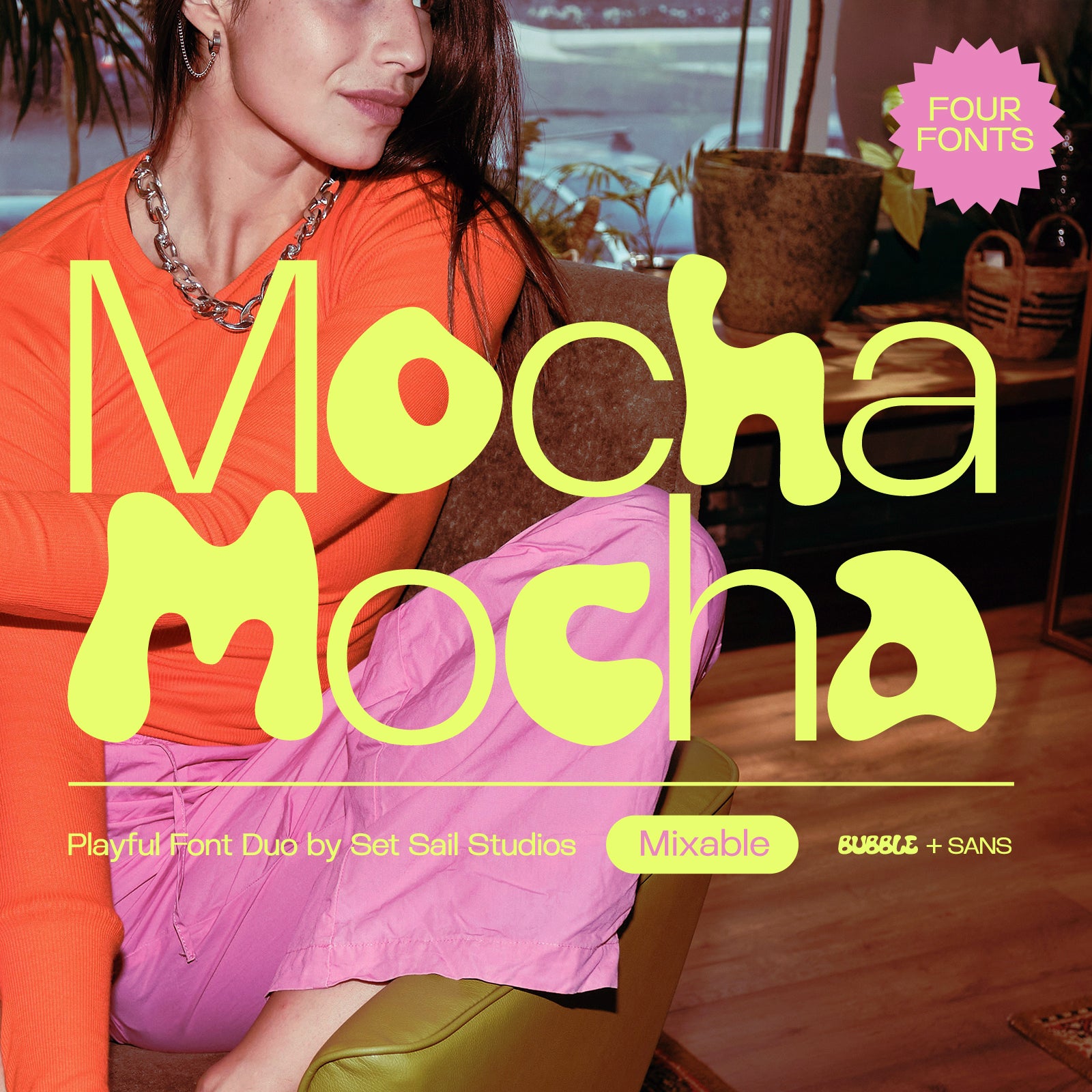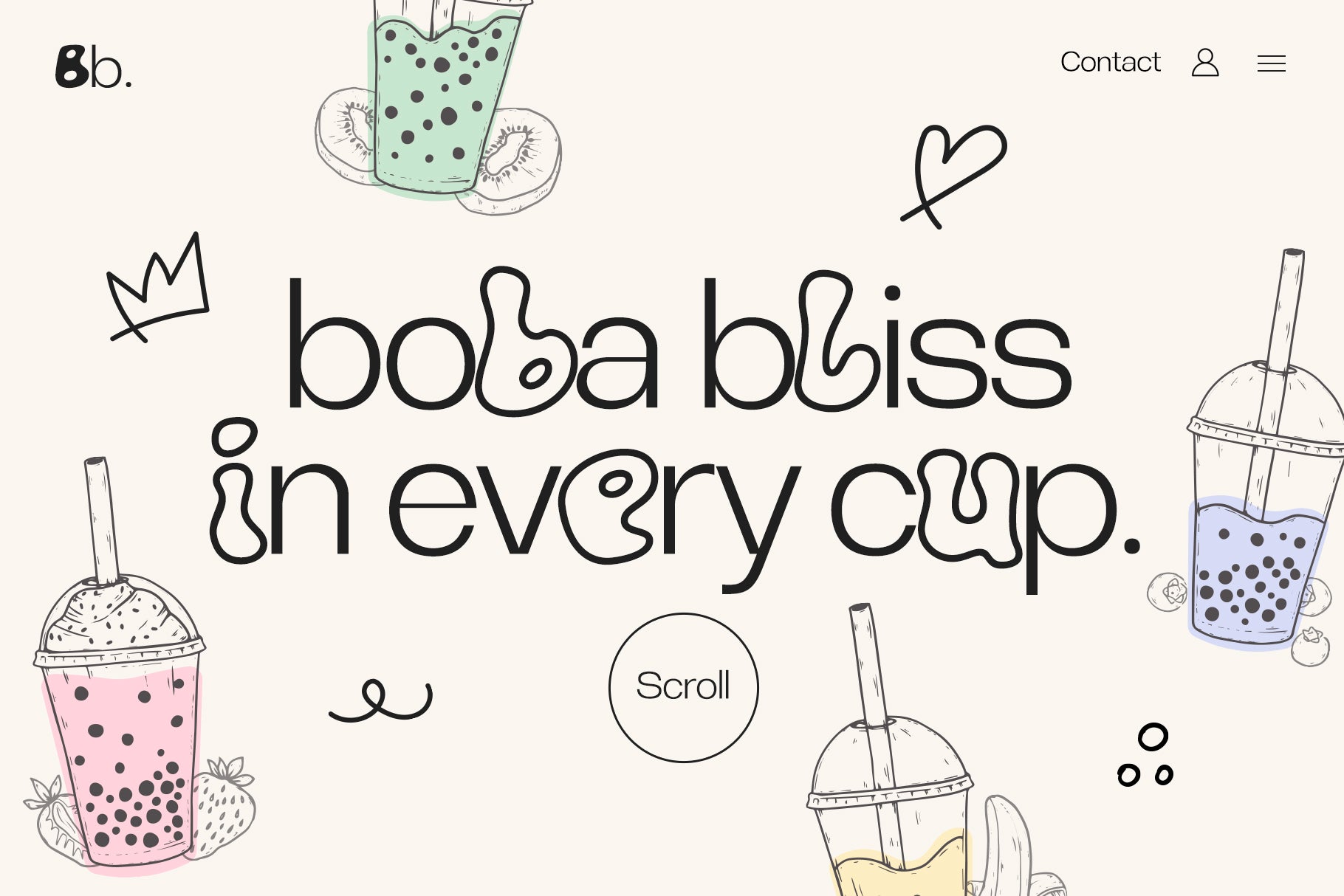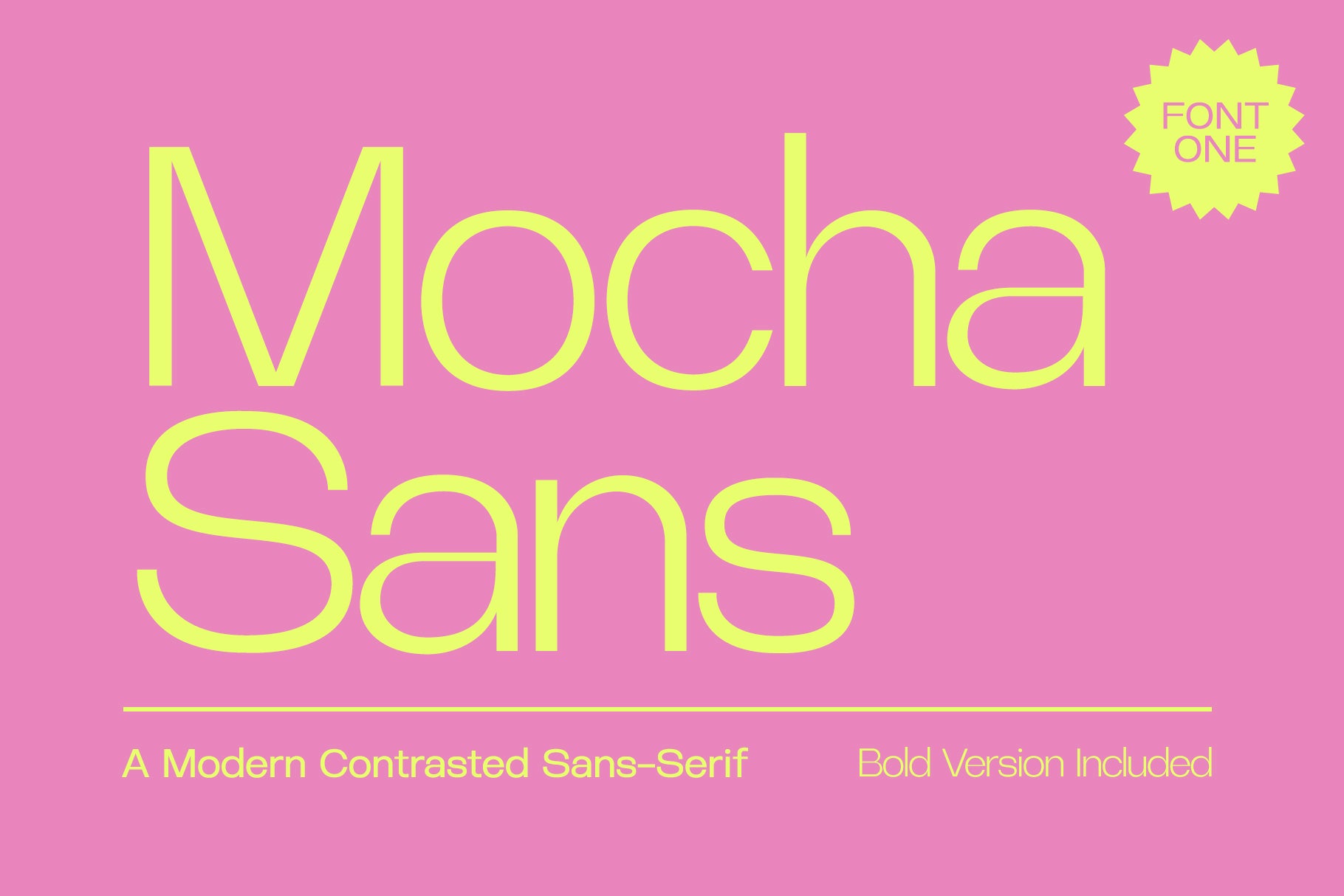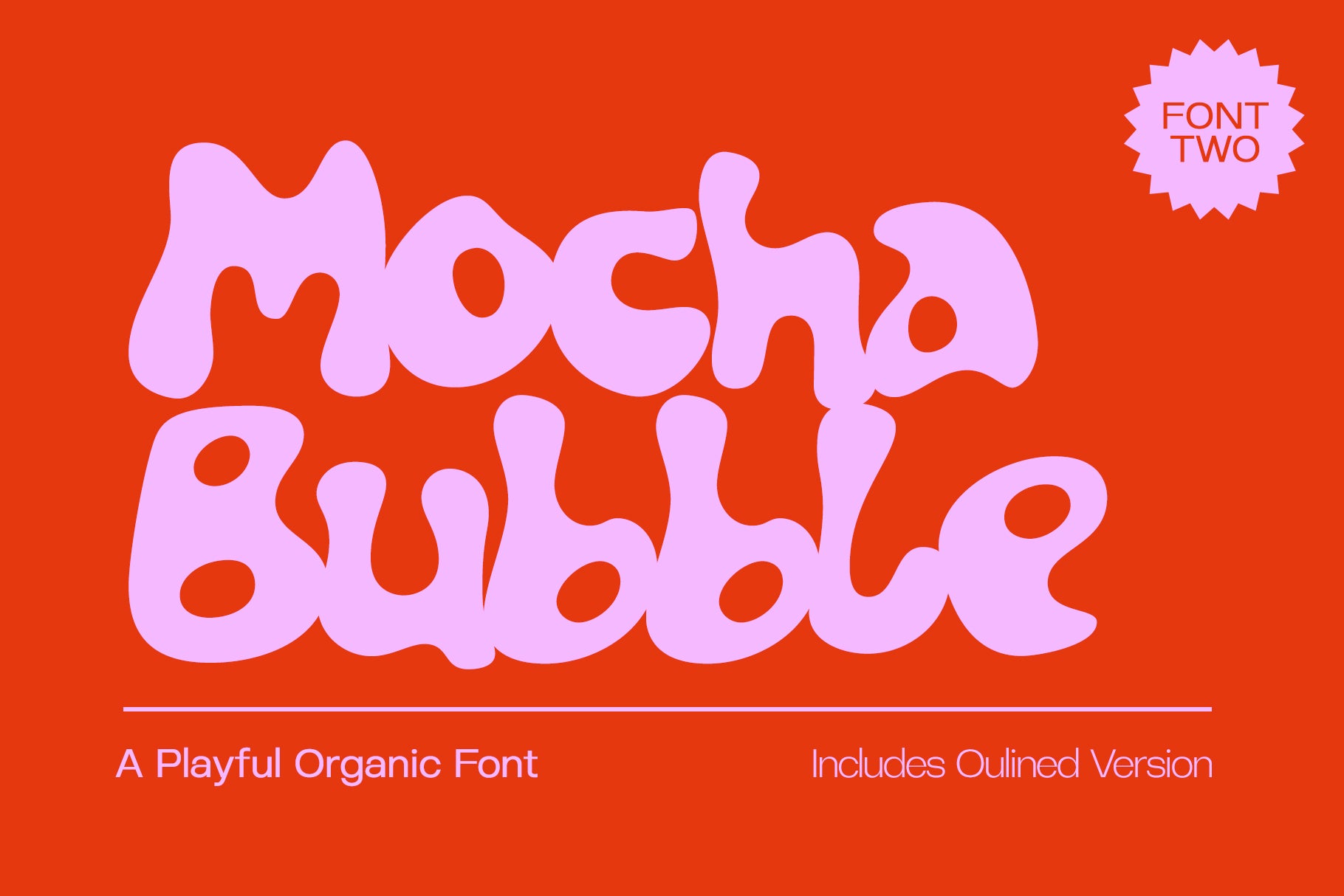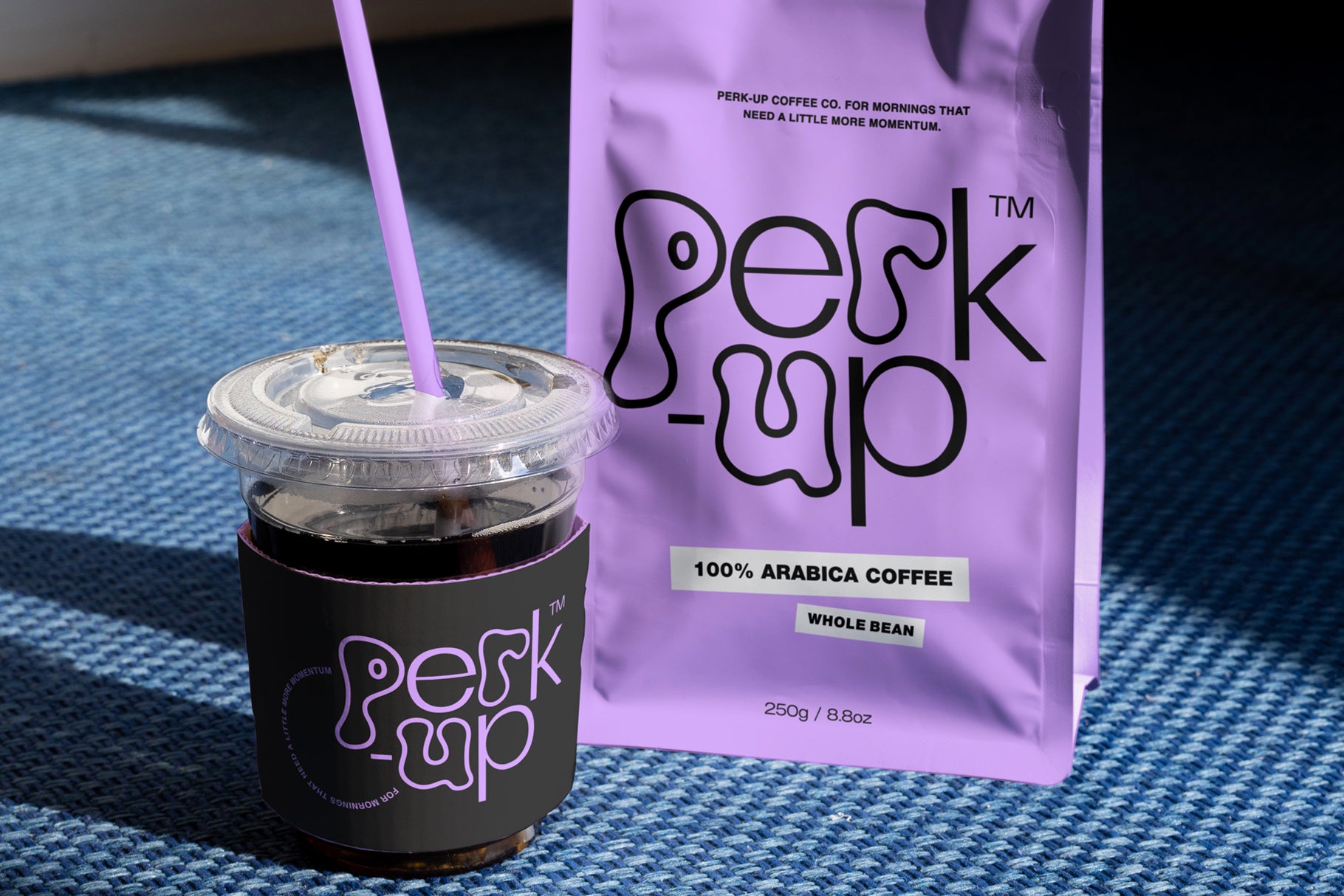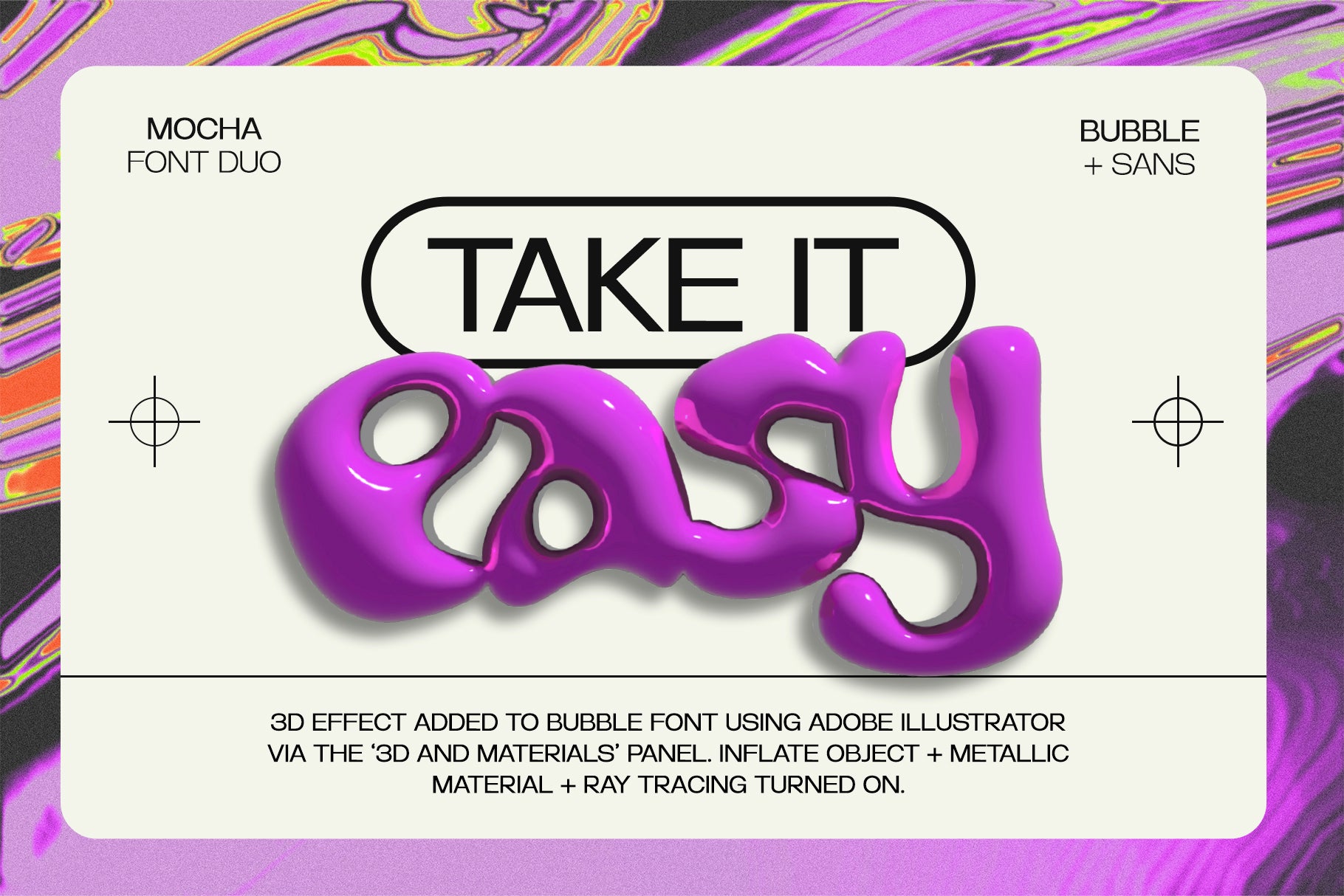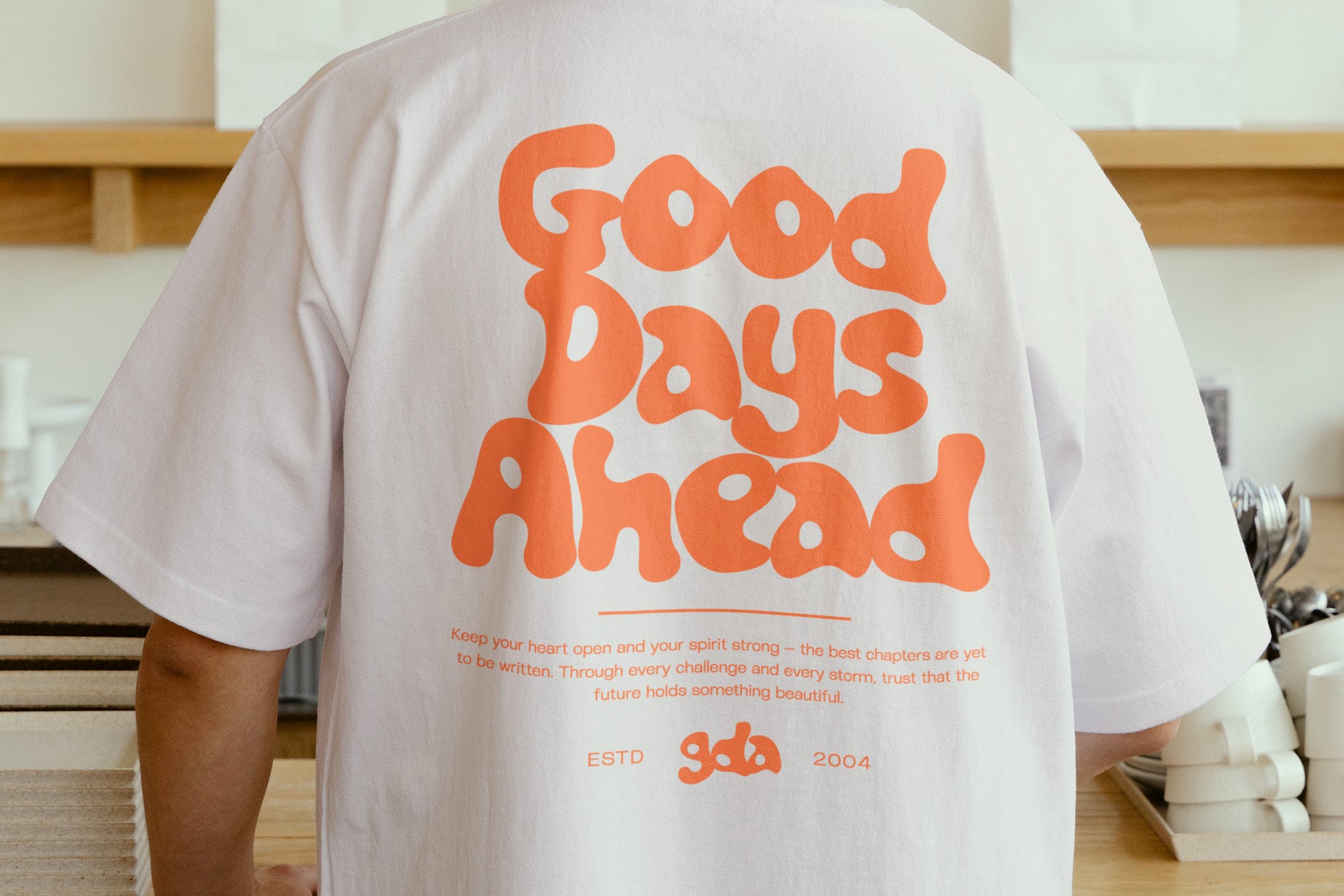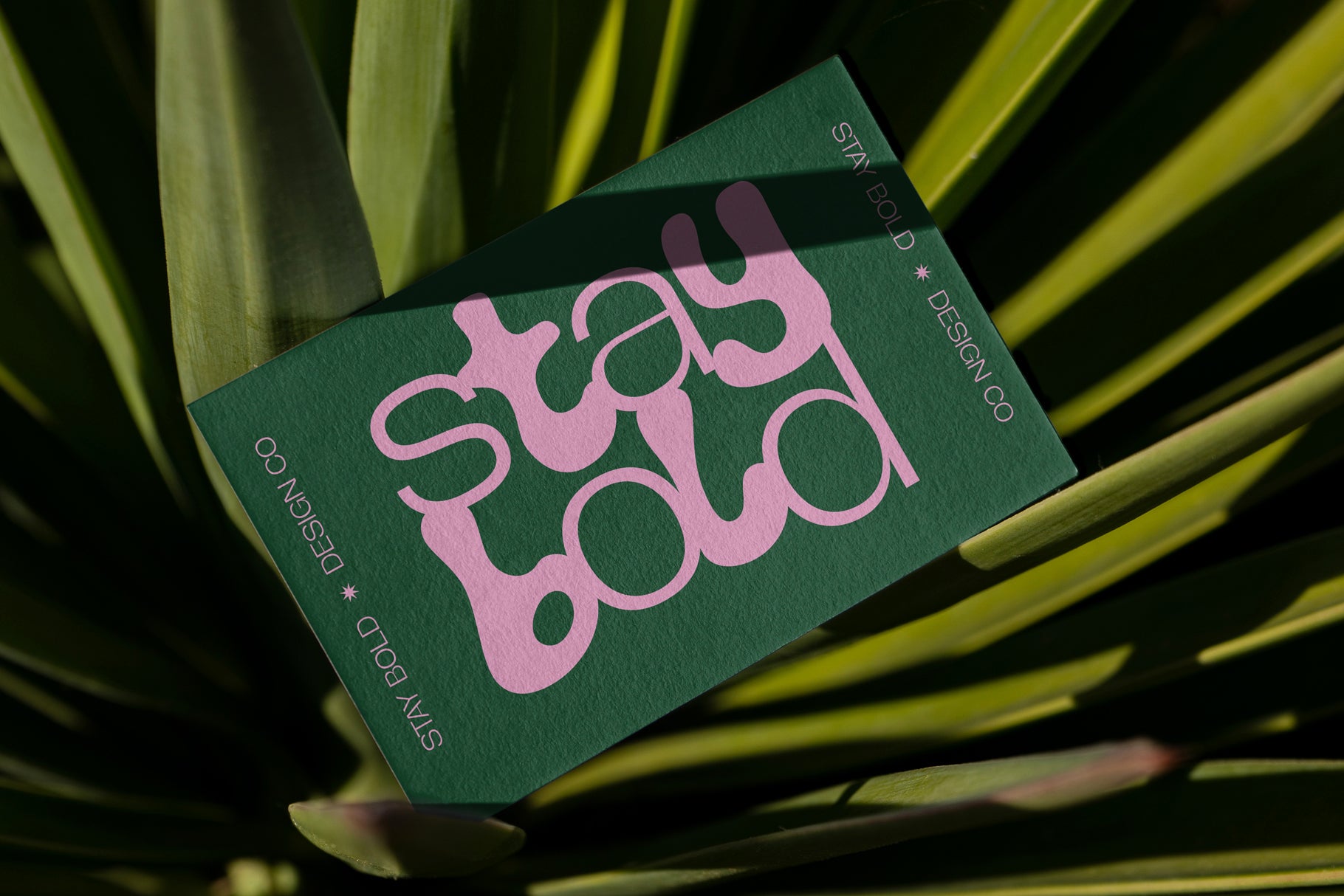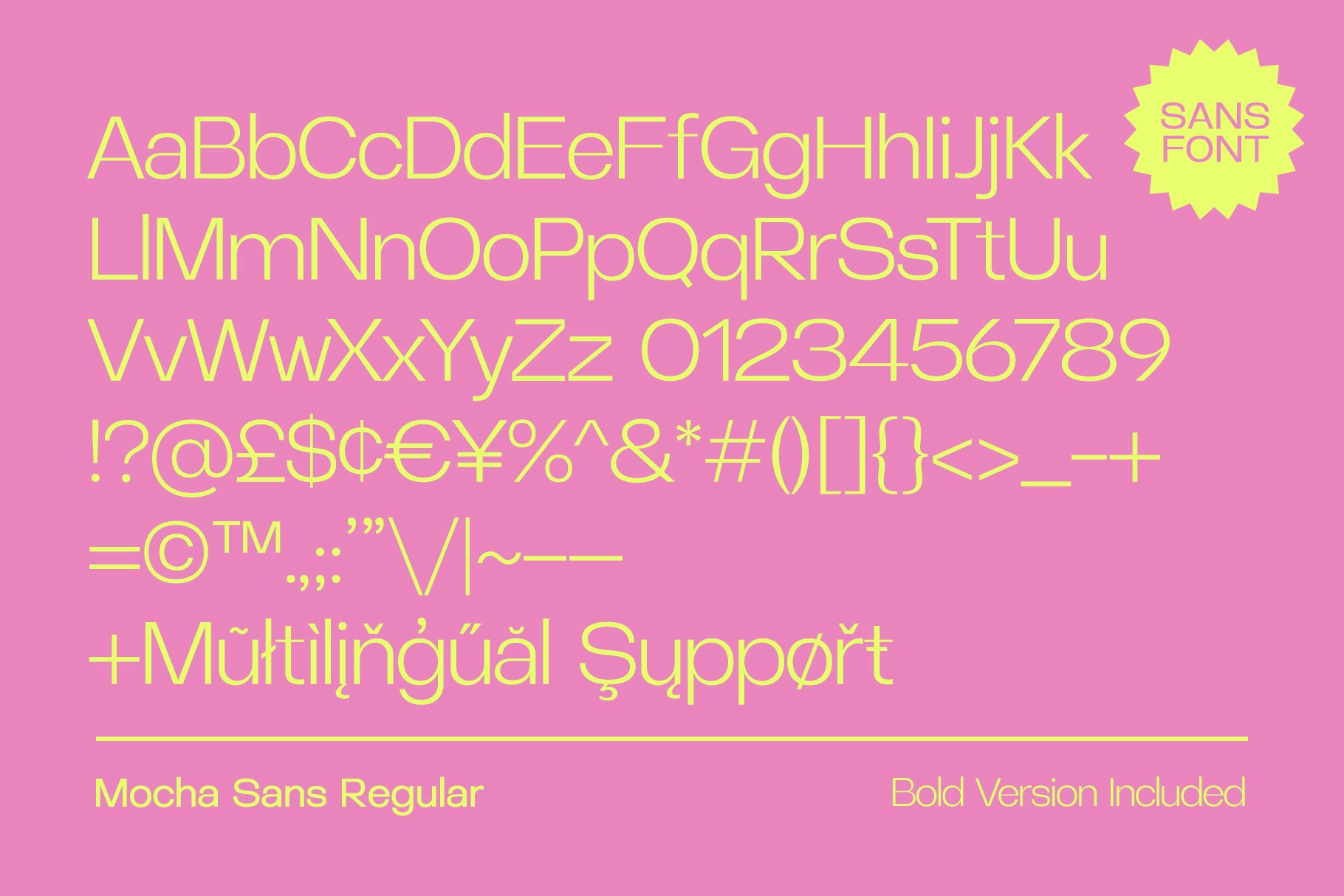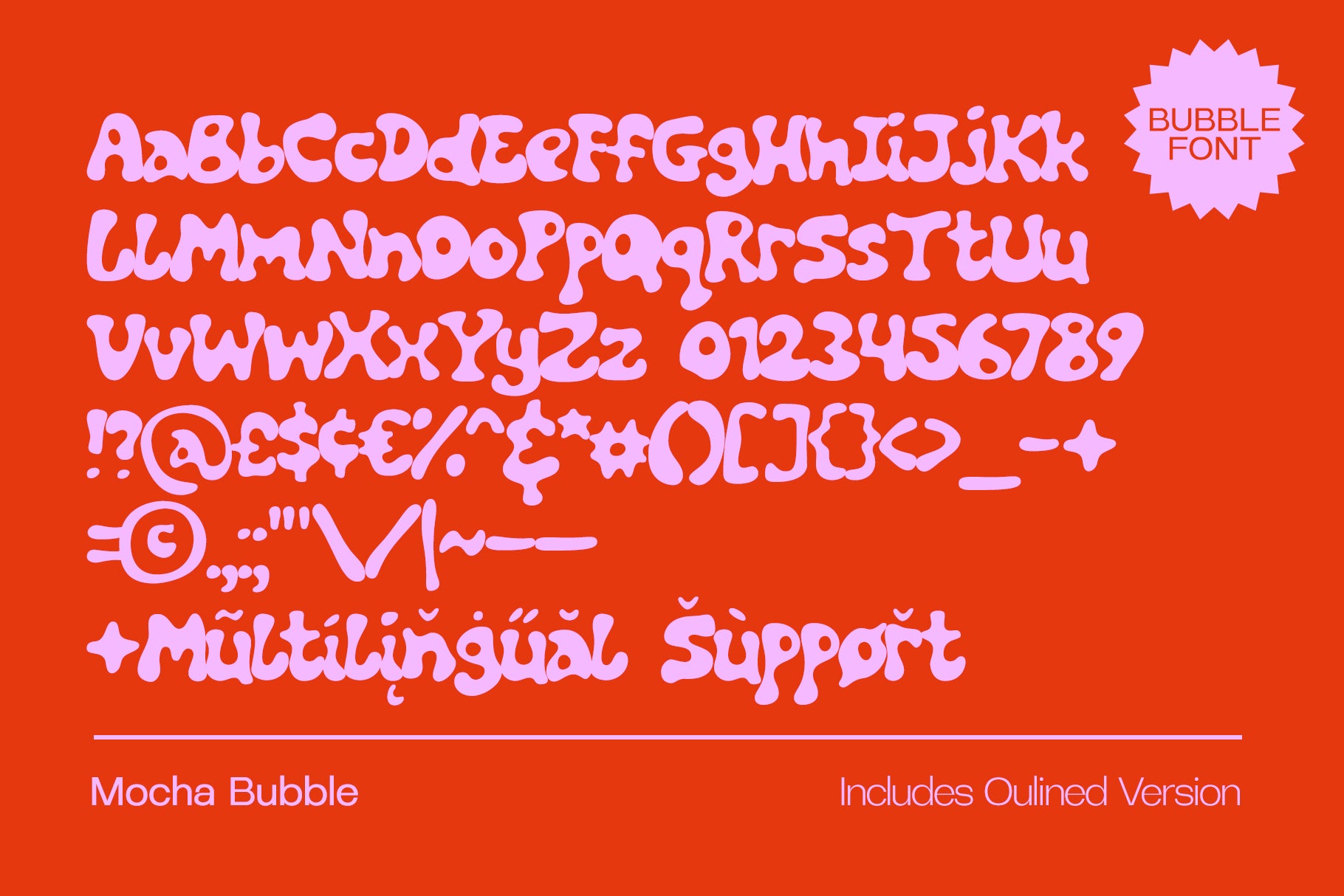
Mocha Bubble + Sans Font Duo
The Mocha Bubble + Sans Font Duo features a playful pairing of Bubble and Sans fonts, designed to complement each other with contrasting weights while maintaining similar dimensions. This set includes four fonts: Mocha Sans, Mocha Sans Bold, Mocha Bubble, and Mocha Outline, each offering a full set of uppercase, lowercase, and punctuation, along with support for multiple languages.